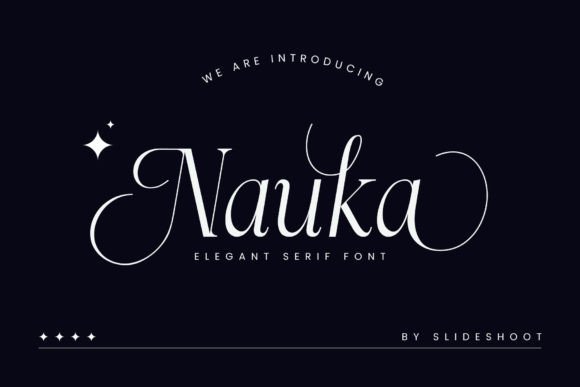
Introducing Nauka Font, the ultimate choice for all your tattoo design needs. This elegant and smooth serif font, created by Slide Shoot, is the perfect blend of sophistication and creativity. Whether you're designing invitation cards, company logos, movie titles, or even business cards, Nauka Font will elevate your designs to new heights.
With its regular and italic variations, Nauka Font offers endless possibilities for your creative projects. The seamless combination of these styles adds a touch of uniqueness and versatility to your designs, making them truly stand out. Say goodbye to mundane and predictable fonts, and embrace the captivating charm of Nauka Font.
Imagine the impact Nauka Font can have on your book titles or brand names. Its timeless appeal will draw readers in, leaving a lasting impression. The sleek curves and intricate details of this font create a captivating visual experience that will leave your audience wanting more. Let your creativity flow, and watch as Nauka Font brings your words to life.
But it doesn't stop there. Nauka Font is not just a font, it's a work of art. Each letter is meticulously crafted to perfection, ensuring a flawless and professional finish. The attention to detail is unparalleled, making Nauka Font a true masterpiece in the world of typography.
Don't settle for ordinary when you can have extraordinary. Nauka Font is the key to unlocking a world of limitless possibilities. Let your imagination run wild and explore the endless design options that this font has to offer. Transform your projects from average to exceptional with just a few clicks.